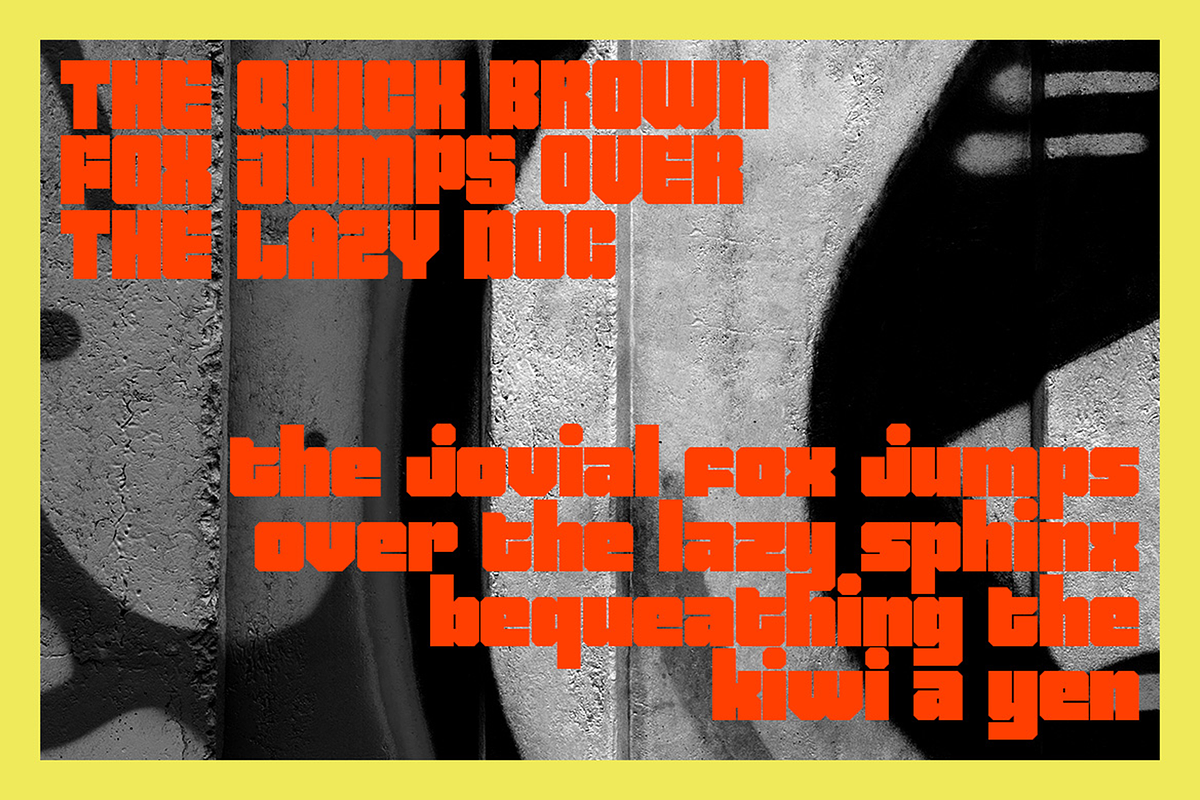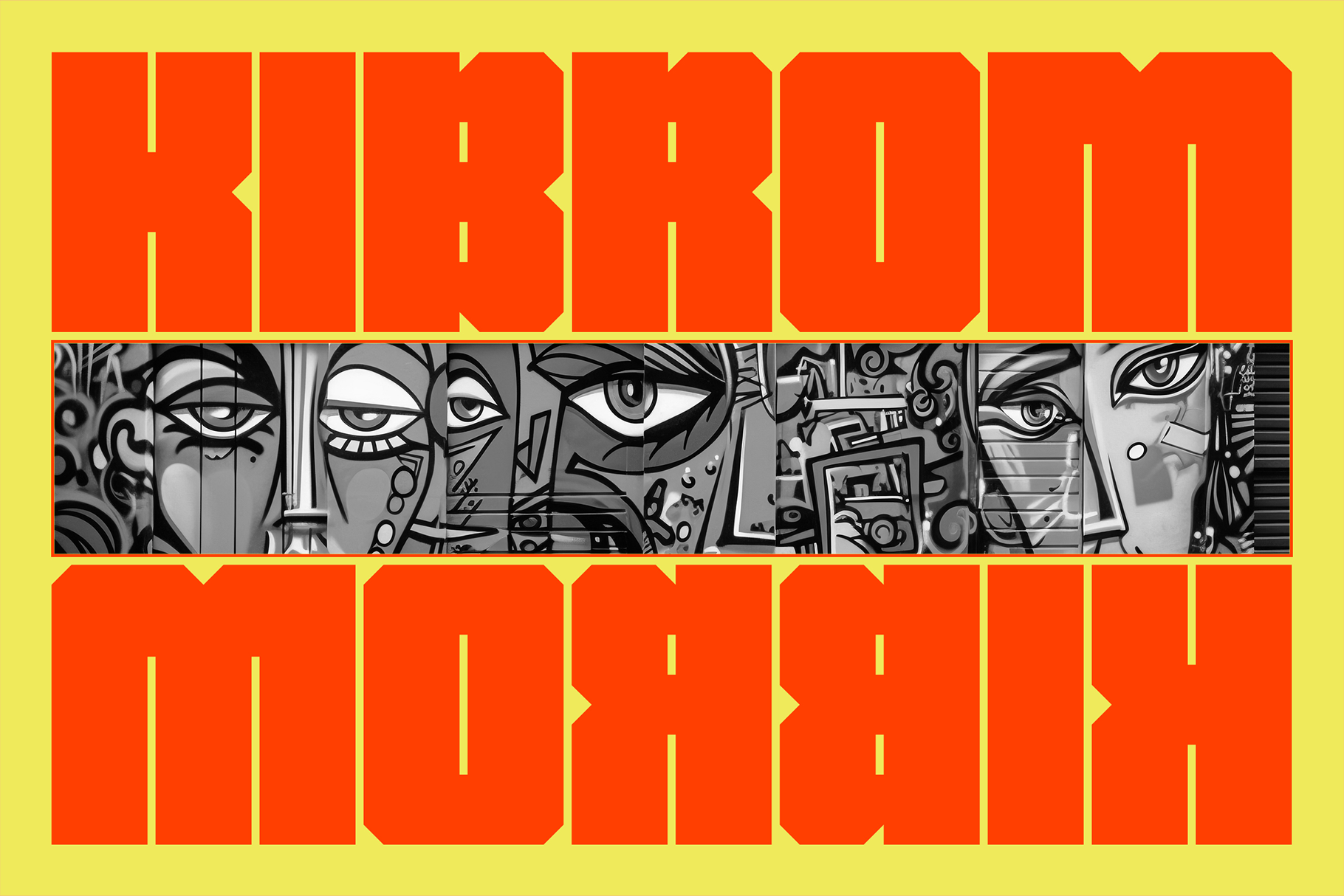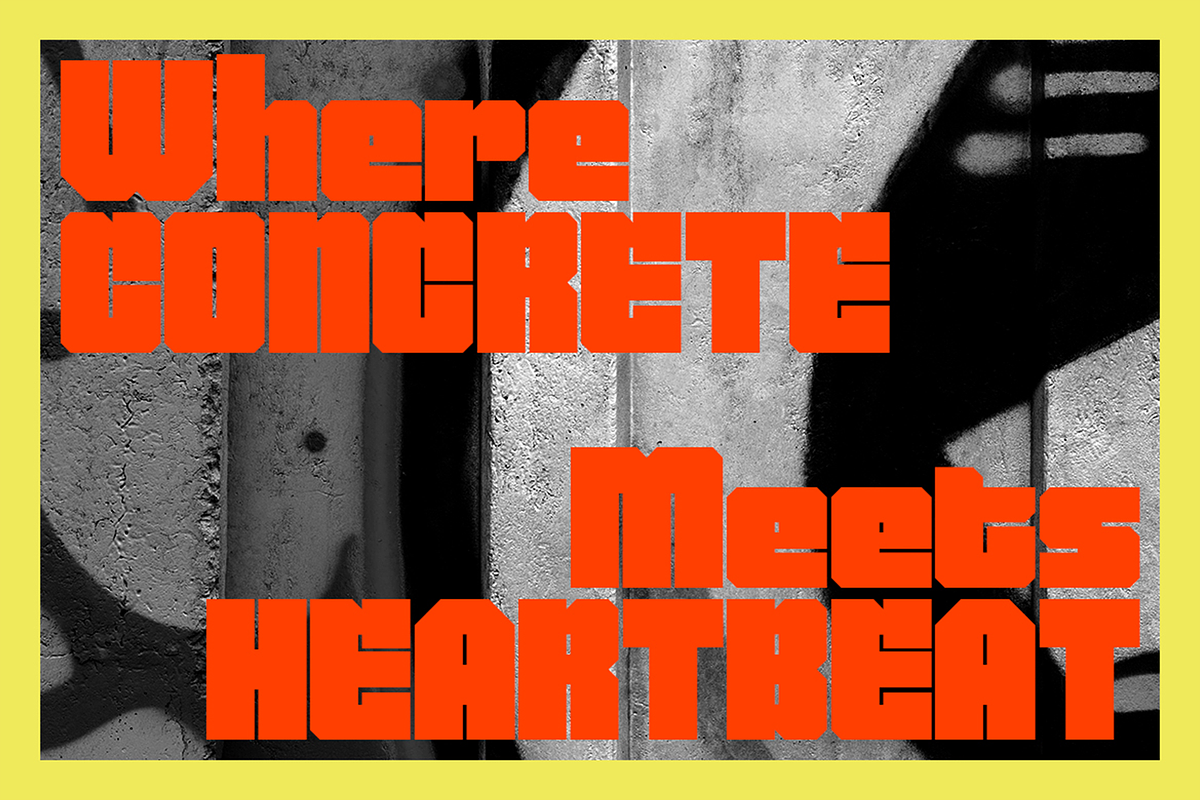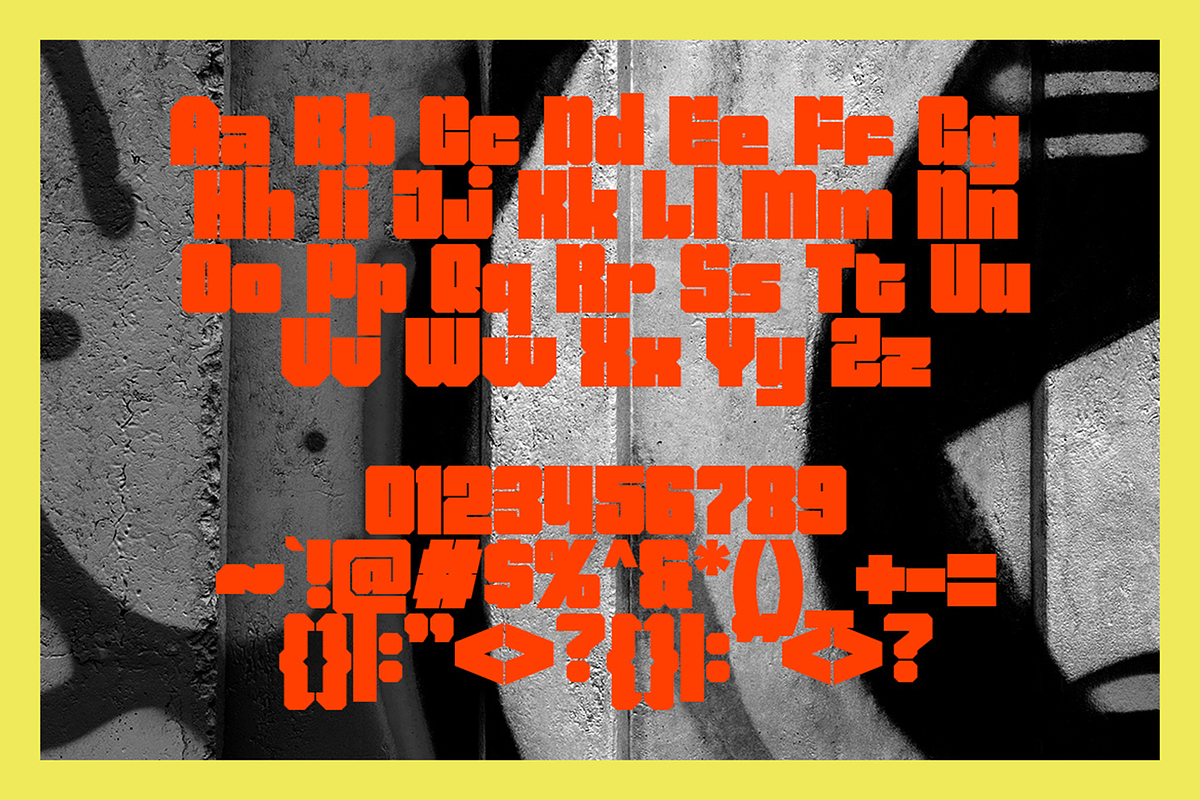
Kibrom - Urban Block Fonts
The city's a canvas, and Kibrom is your paintbrush. Forget dainty curves, embrace the raw energy of urban life with Kibrom, a collection of blocky fonts inspired by the heart of the streets. From gritty murals to underground gig posters, Kibrom captures the unapologetic spirit of cityscapes.
Don't blend in, stand out.